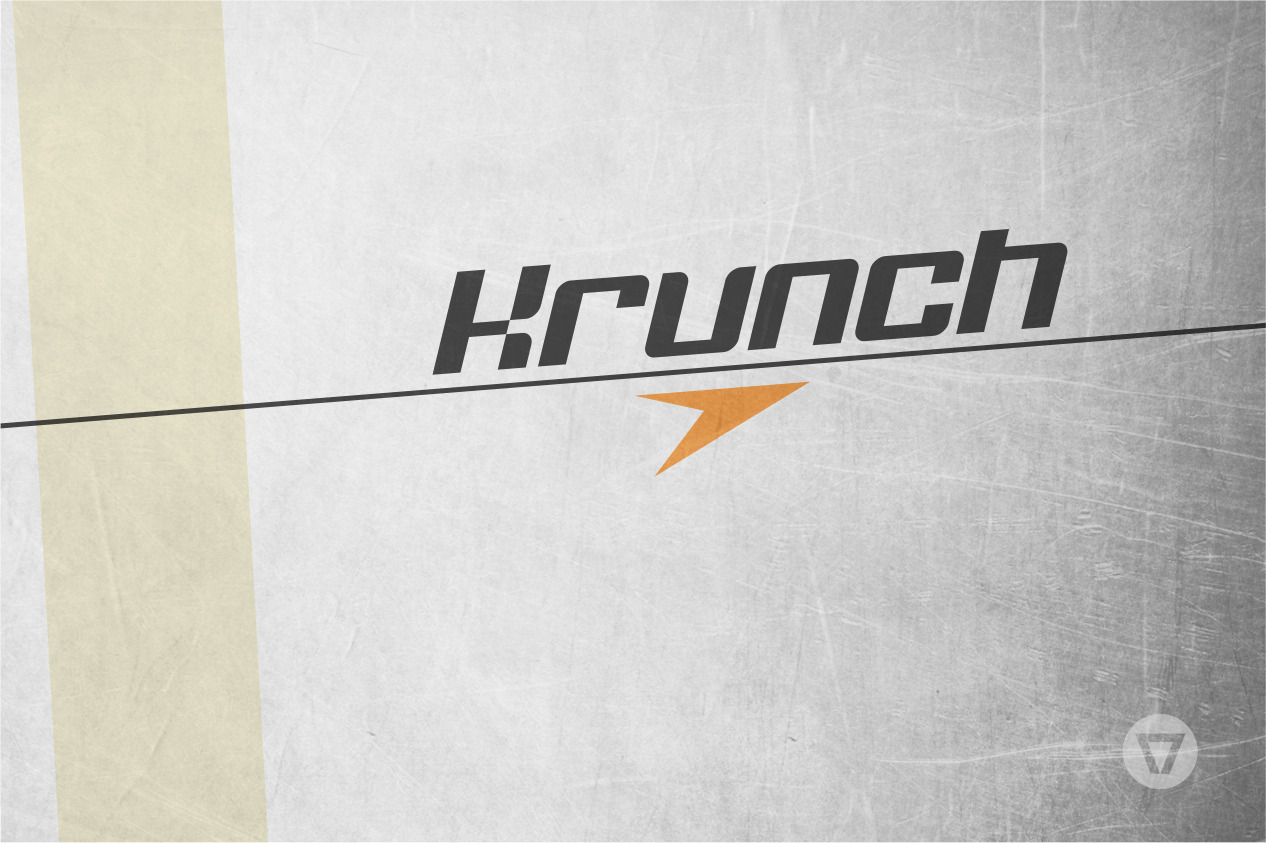
Krunch - Modular techno font
Krunch is a sans-serif techno / digital font perfect for headlines, posters and logos. It comes in 2 styles and has a complete western character set of 187 glyphs.